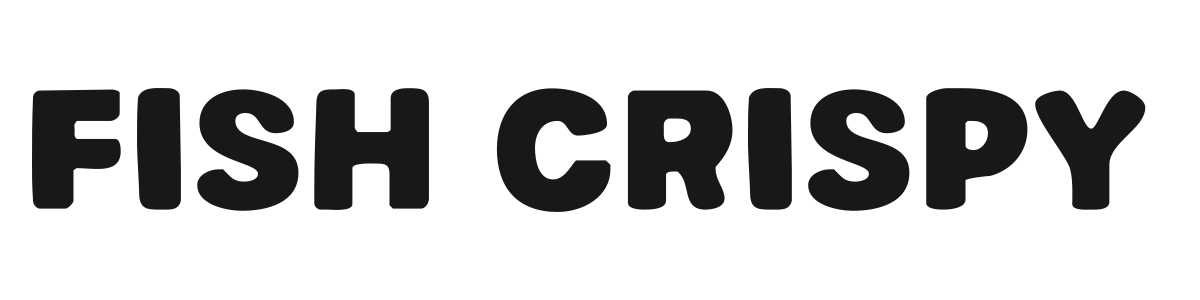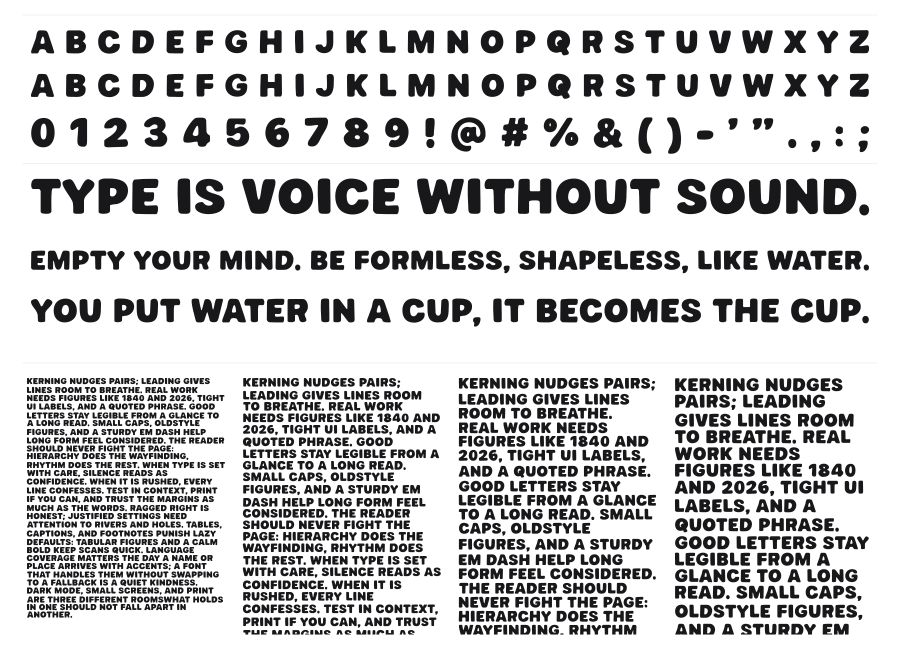
Fish Crispy
Fish Crispy is a heavy rounded sans with bold, chunky characters and a playful, bubbly personality. Its thick strokes and rounded terminals give it a casual, approachable energy that reads immediately at large sizes. A natural choice for food brands, youth-oriented campaigns, or anything that needs to feel loud and fun.